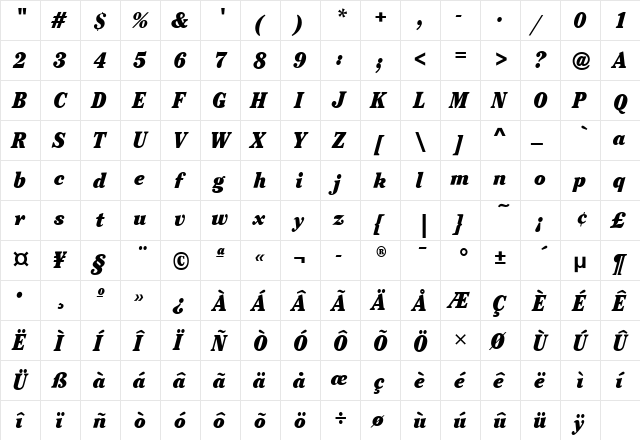
CheltenhamBookCdITC Bold Italic Font Preview
Design Context for CheltenhamBookCdITC Typeface
CheltenhamBookCdITC takes a measured approach to typography — its balanced proportions and neutral character make it a reliable workhorse for both digital and print work. Its italic angle brings a sense of urgency and motion to the letterforms. Its bold stroke weight gives it real presence on the page.
Pro Tip: Use CheltenhamBookCdITC for emphasis, pull quotes, and subheadings where its slanted energy can add rhythm to the layout.